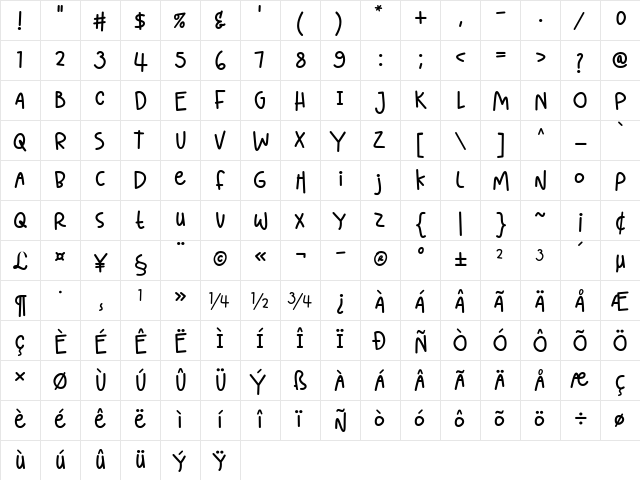
Lighthearted Pleasure Regular
| Foundry | 7NTypes |
| Designer | Keithzo; Situjuh Nazara |
Design Context for Lighthearted Pleasure Typeface
Lighthearted Pleasure is a composed and adaptable typeface that performs quietly and consistently across a wide range of design contexts. Its slender proportions lend an understated elegance to any composition.